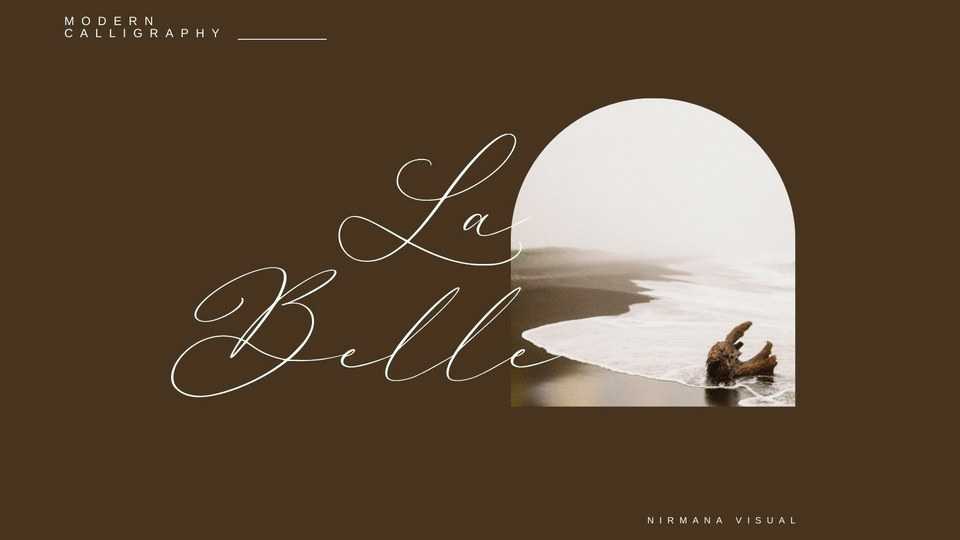
Download La Belle Signature font, a beautiful script typeface carefully created with a touch of romantic. La Belle is a charming combination of timeless elegance and authentic calligraphy.